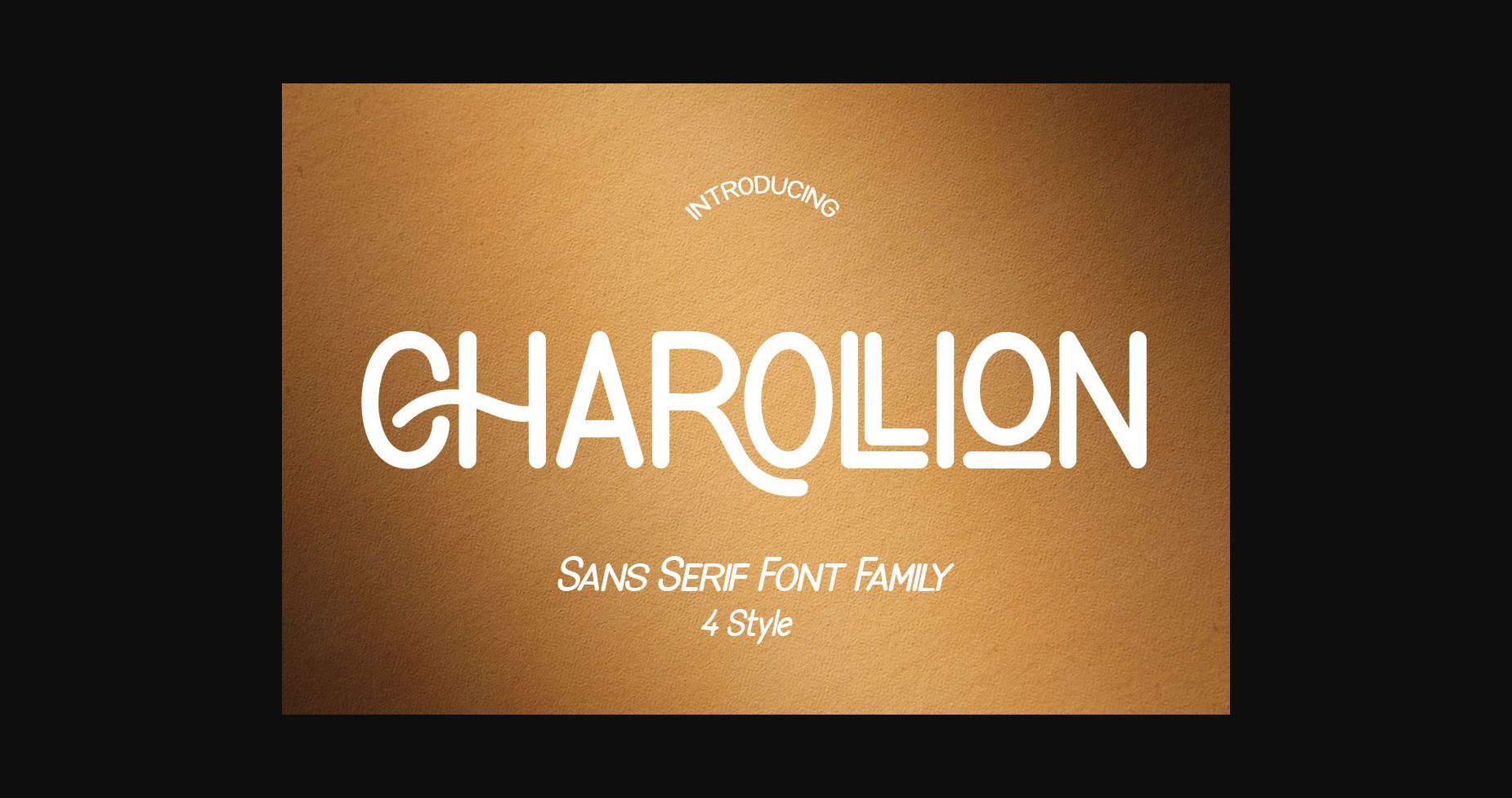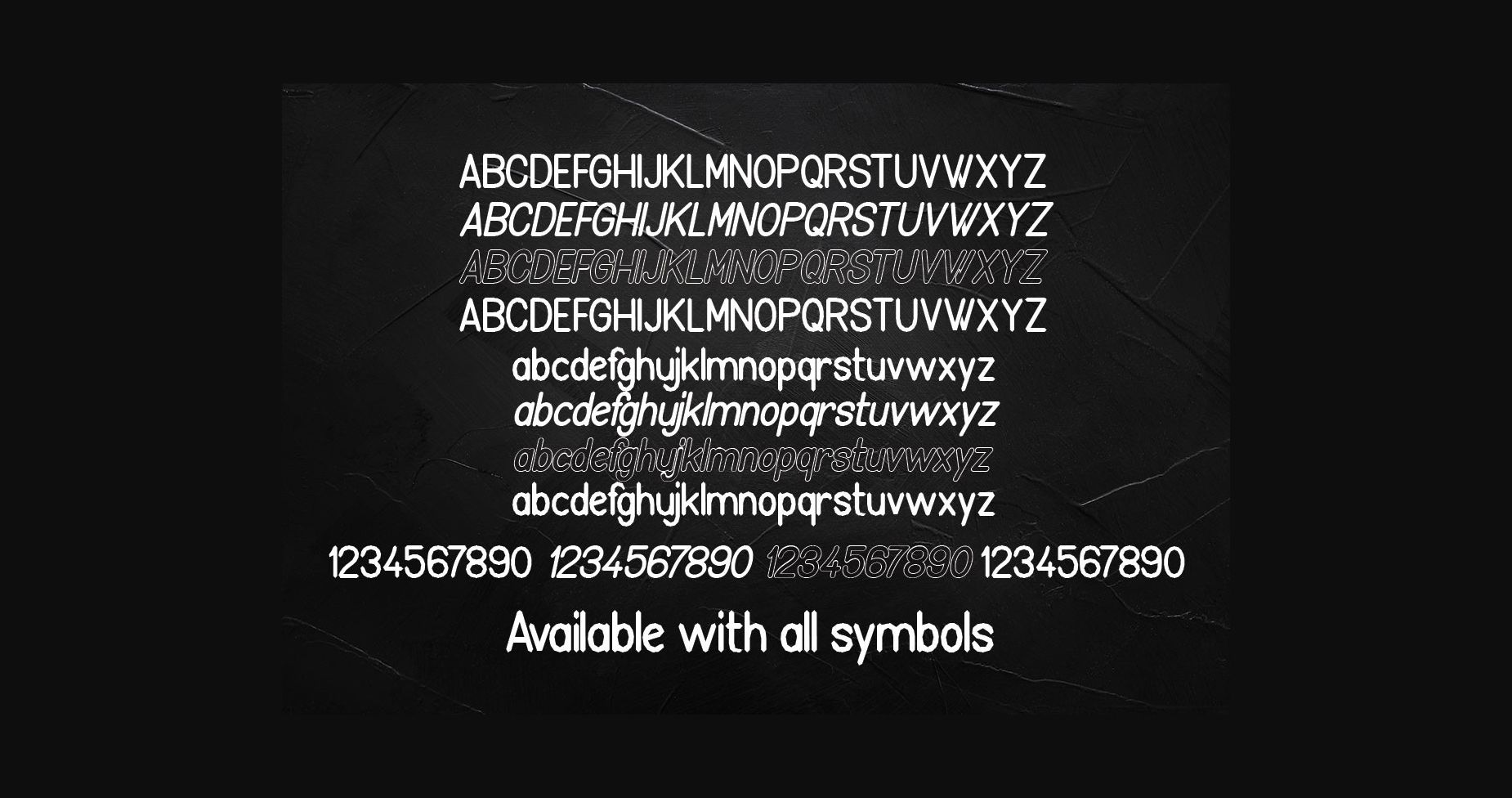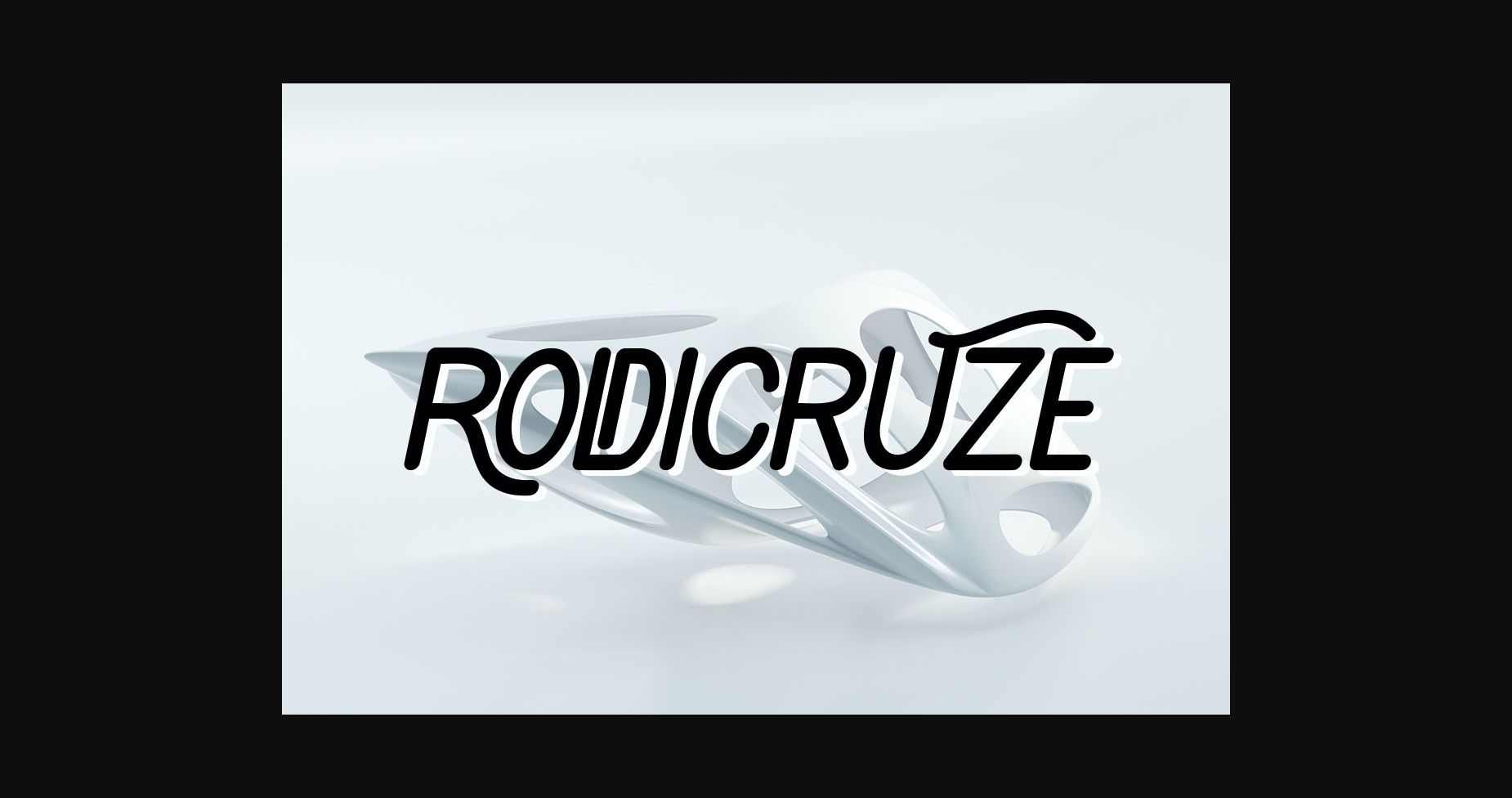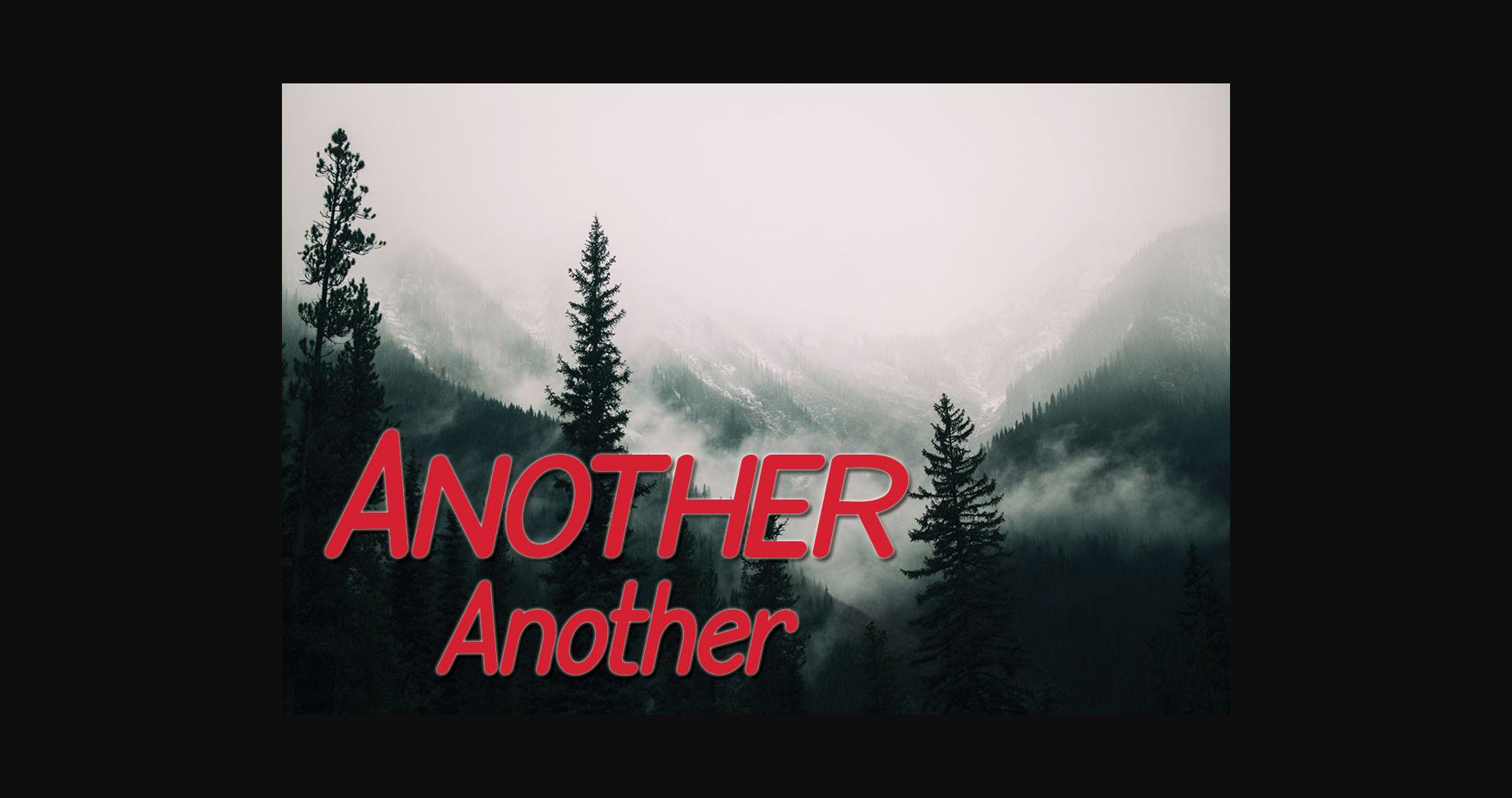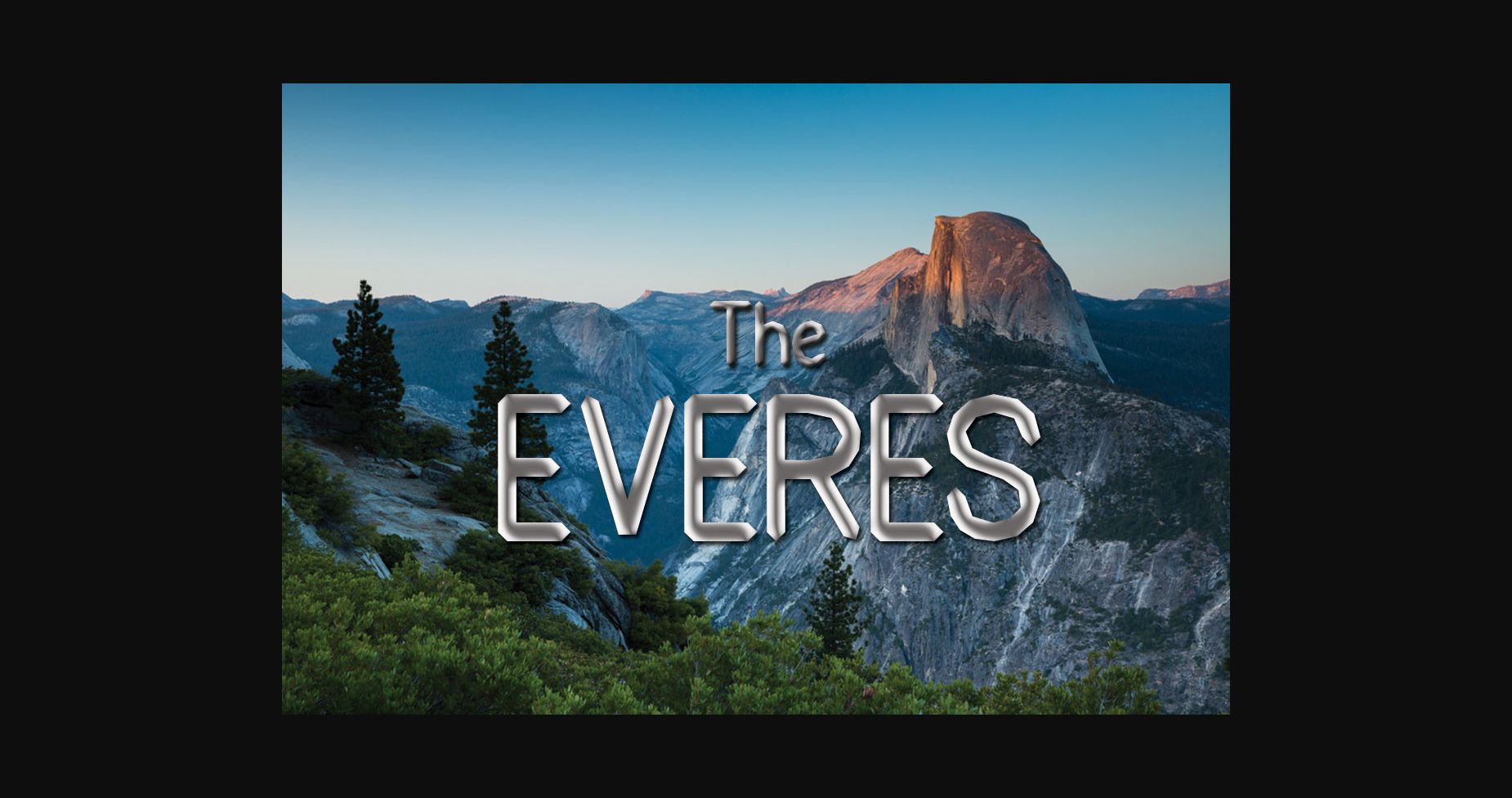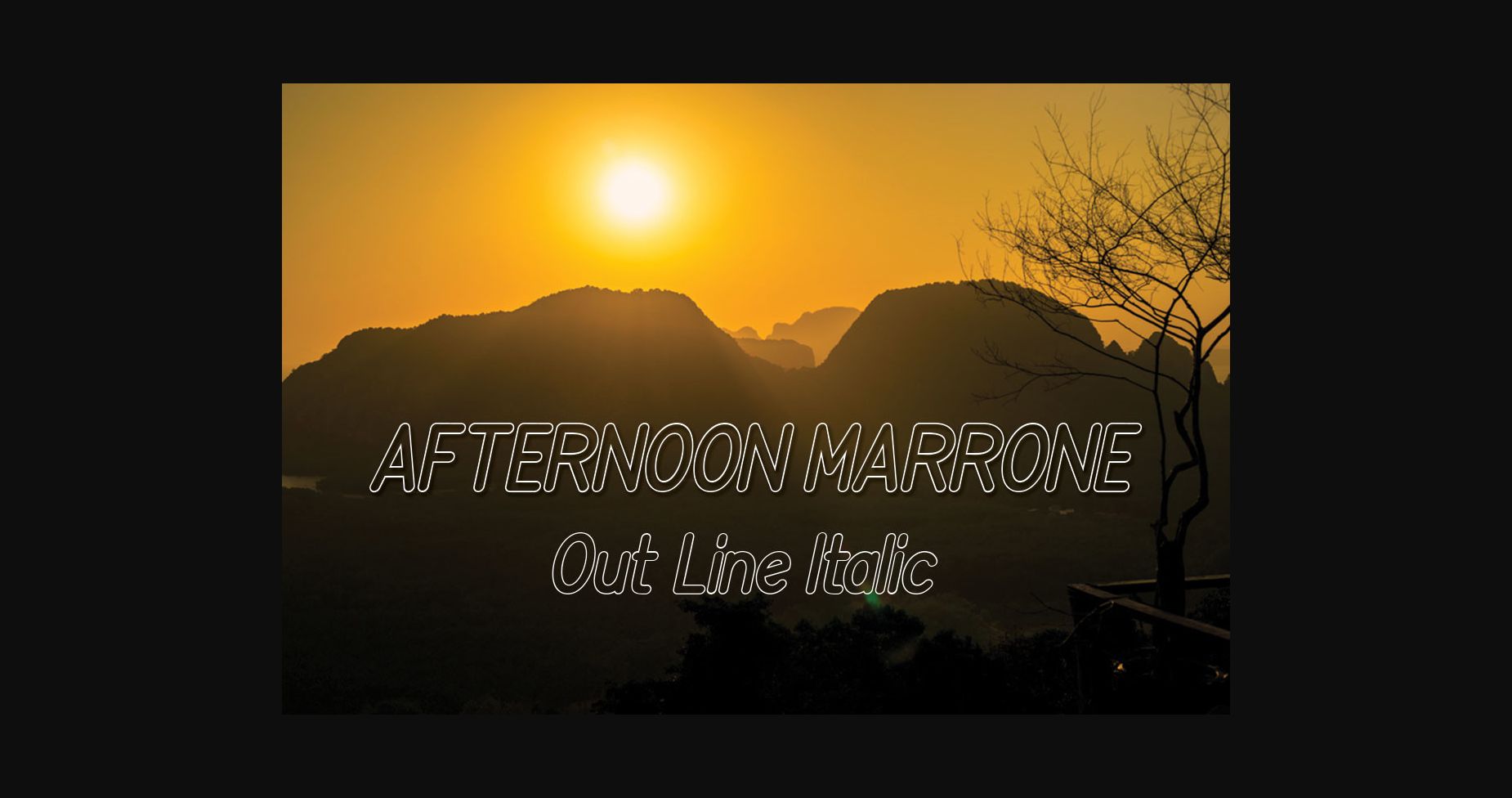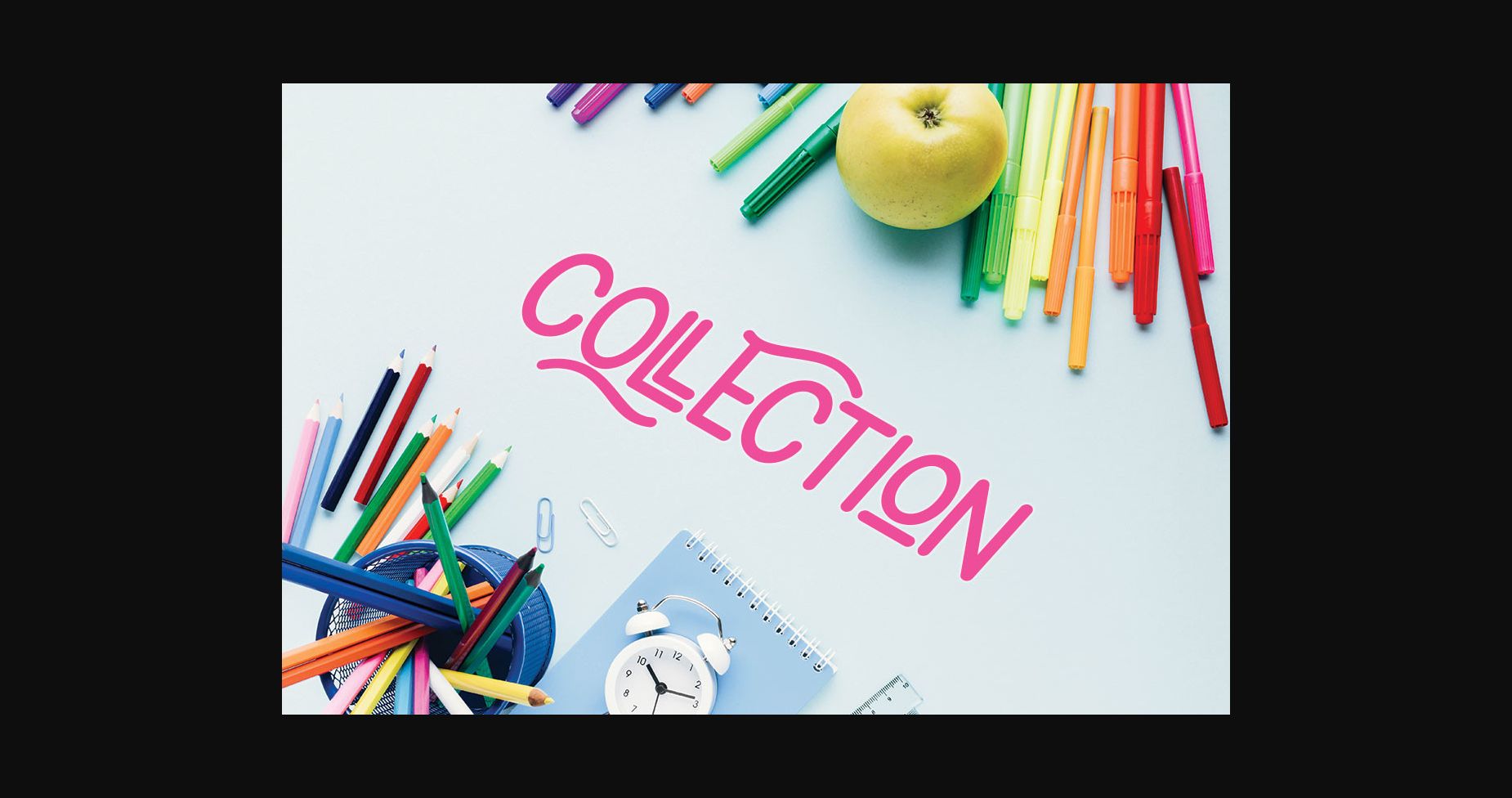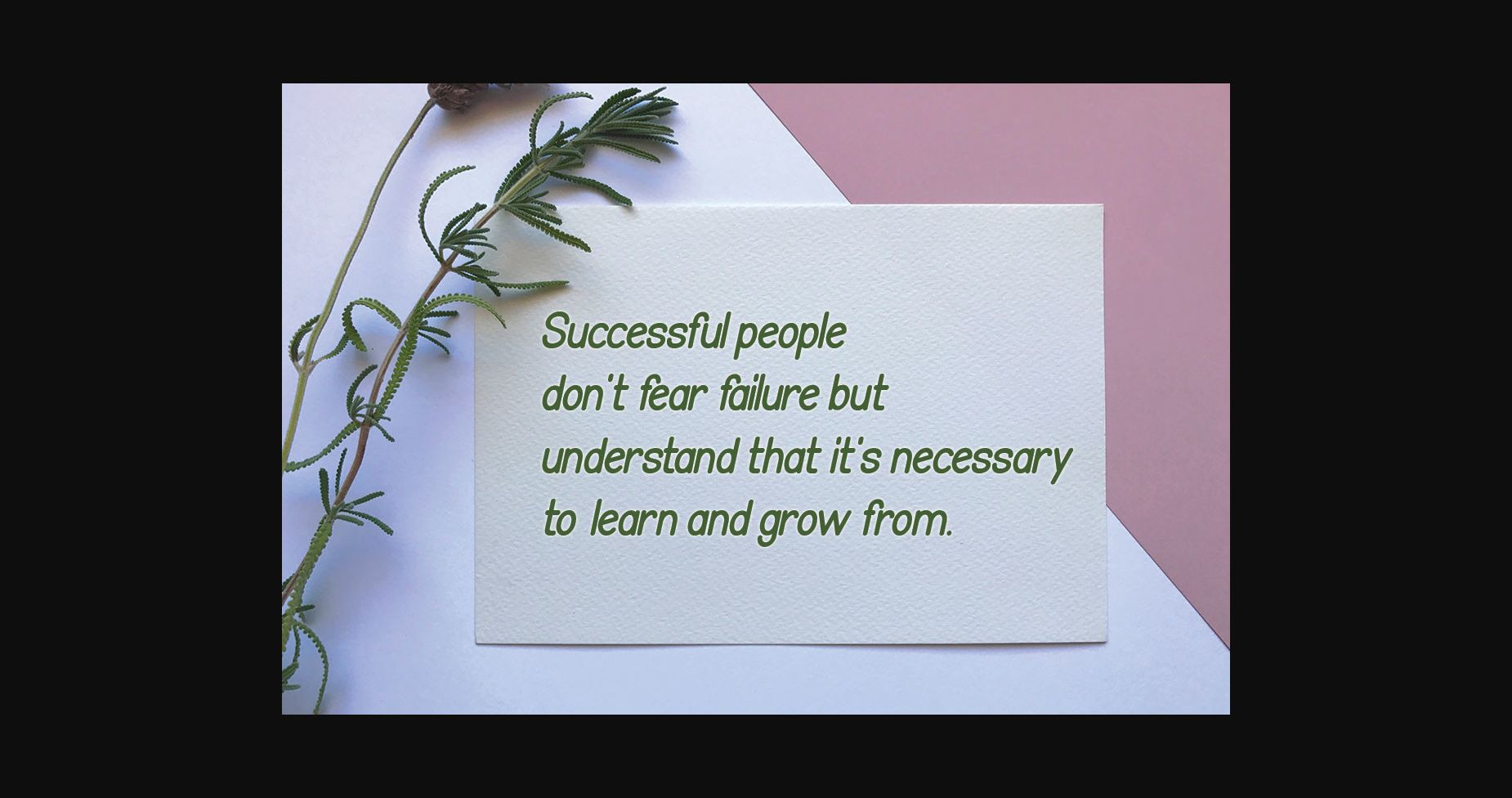
Charollion Font
About Charollion Font
Charollion is an elegant and adaptable sans serif font. No matter the topic, this font will be an incredibly asset to your fonts’ library, as it has the potential to elevate any creation. Charollion is PUA encoded which means you can access all of the glyphs and swashes with ease!